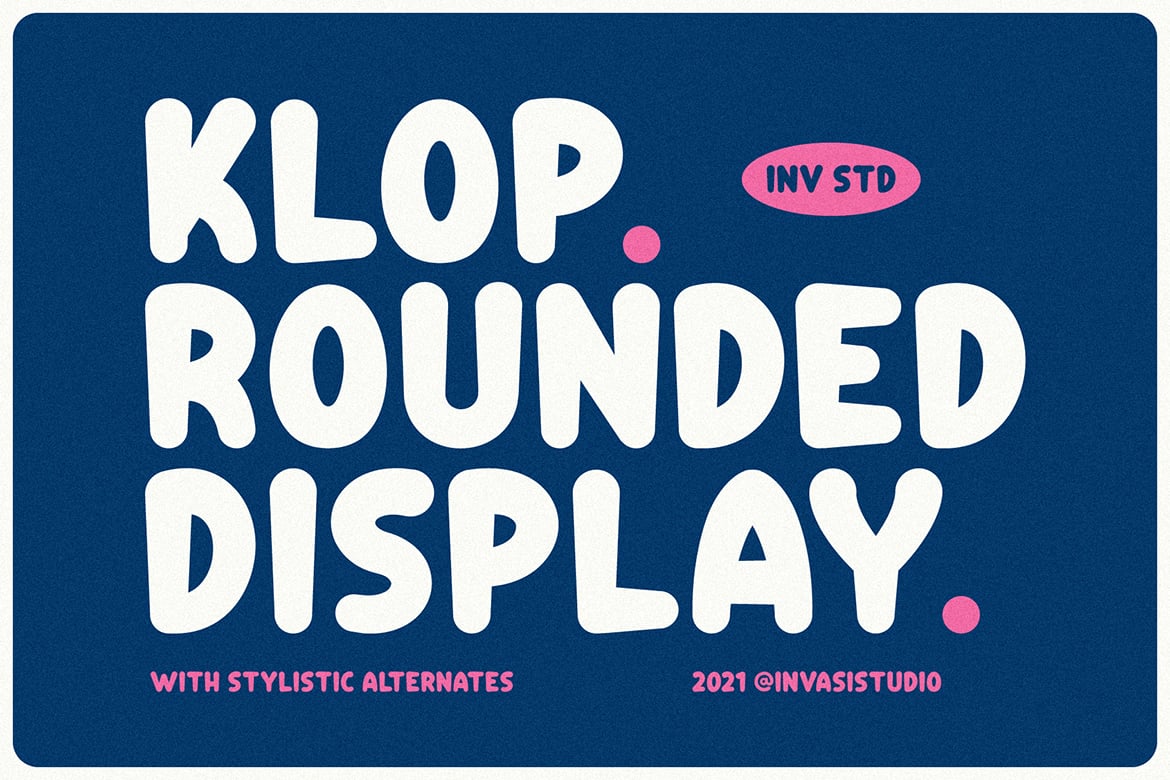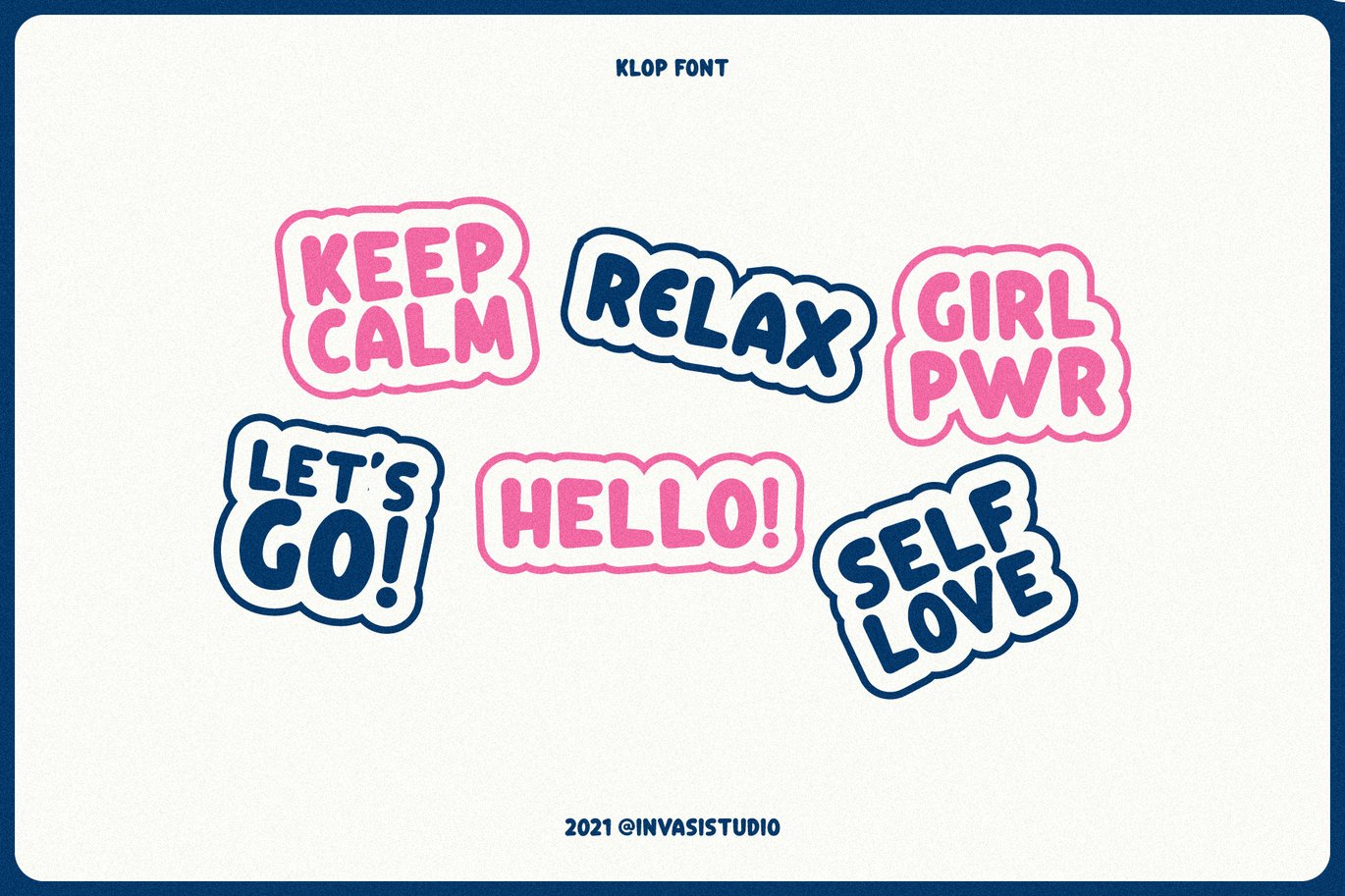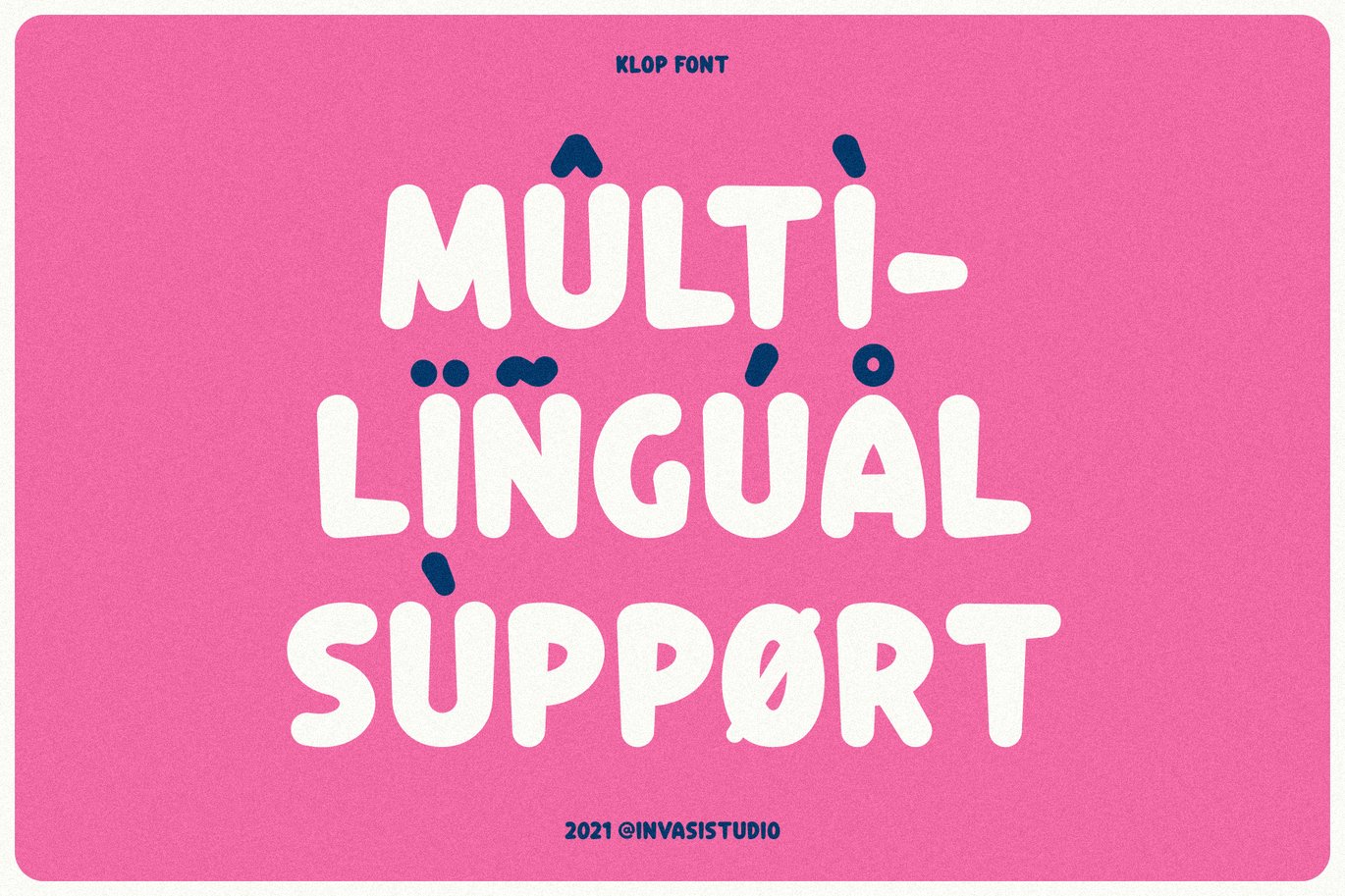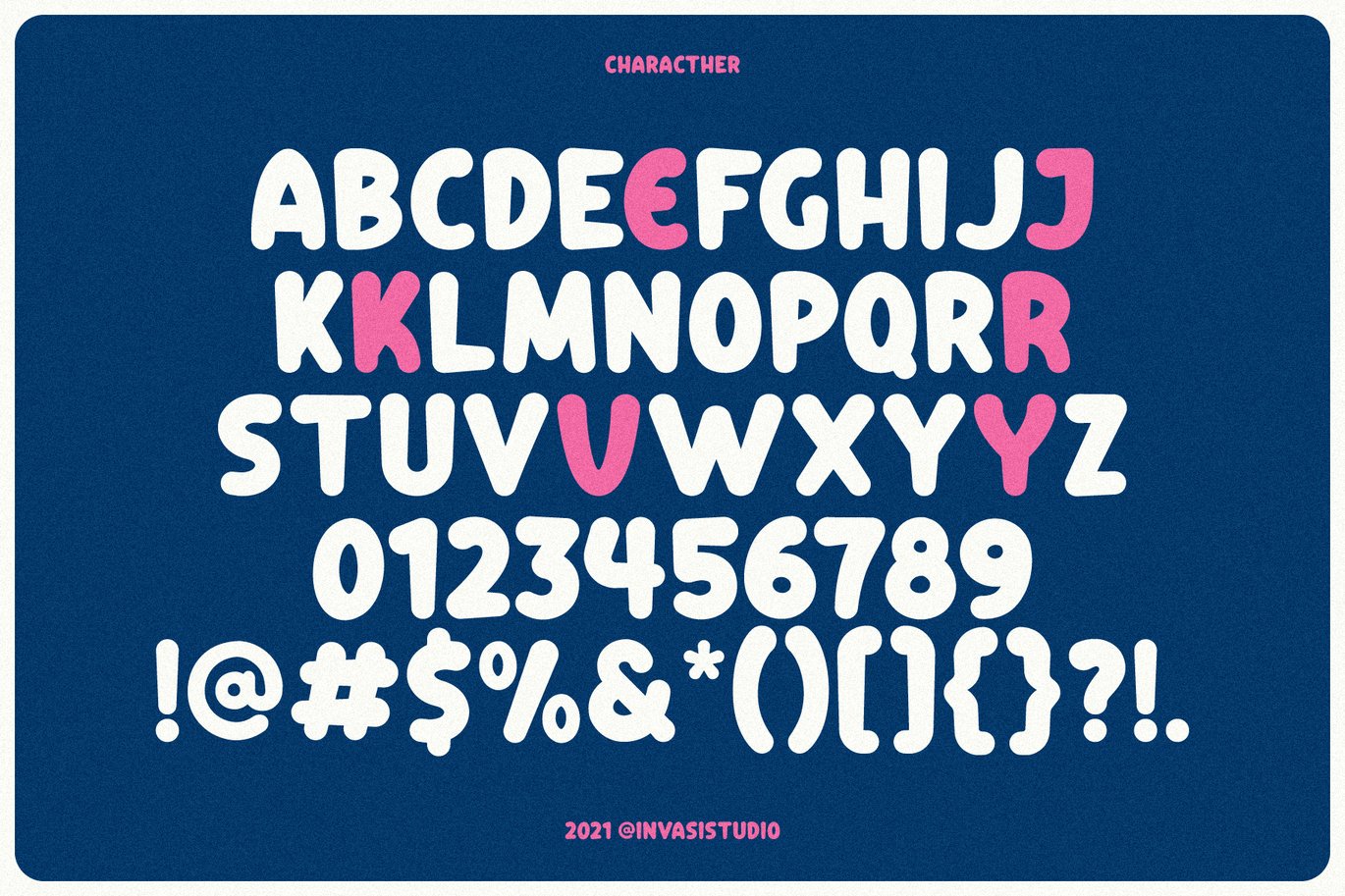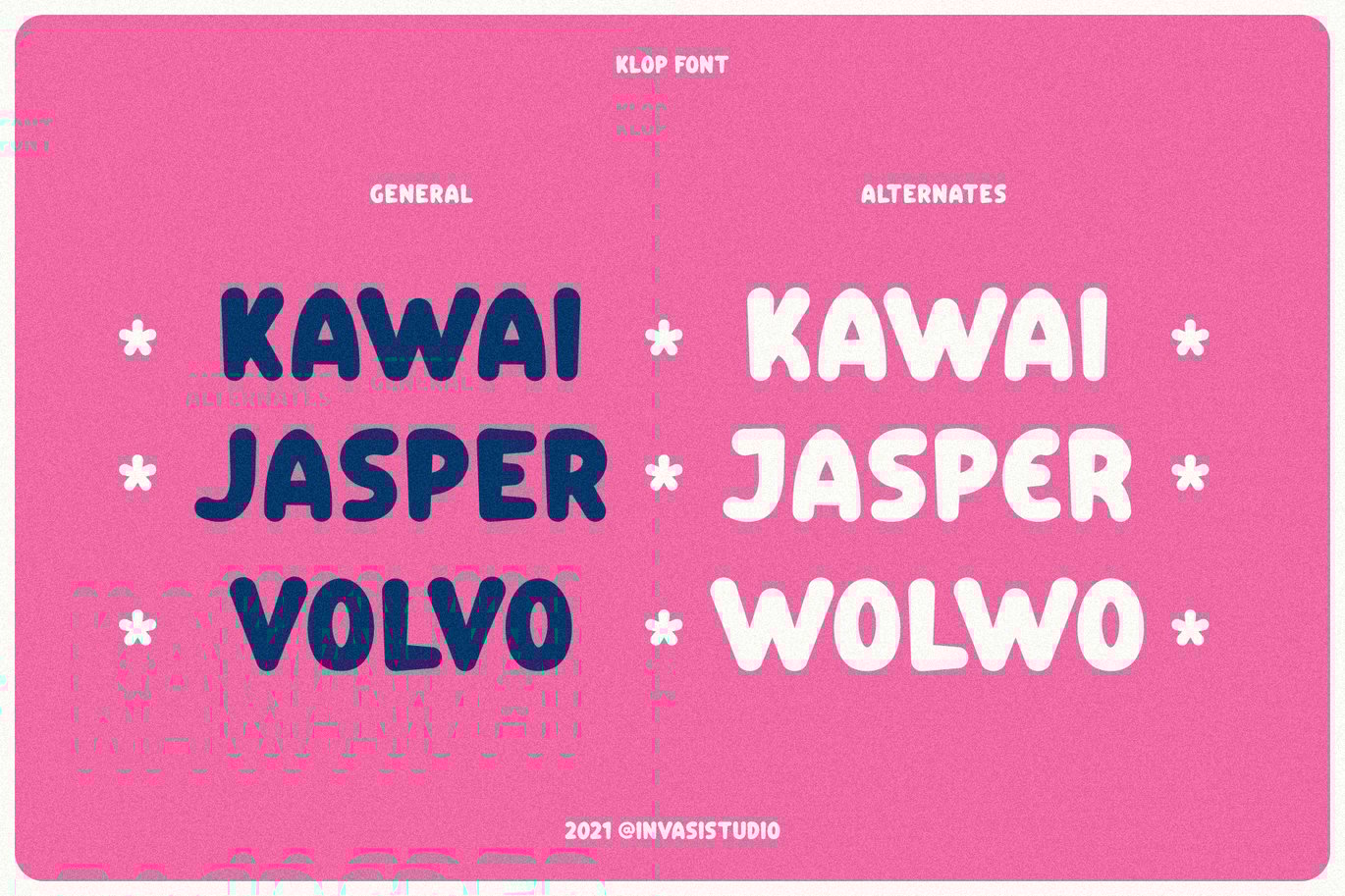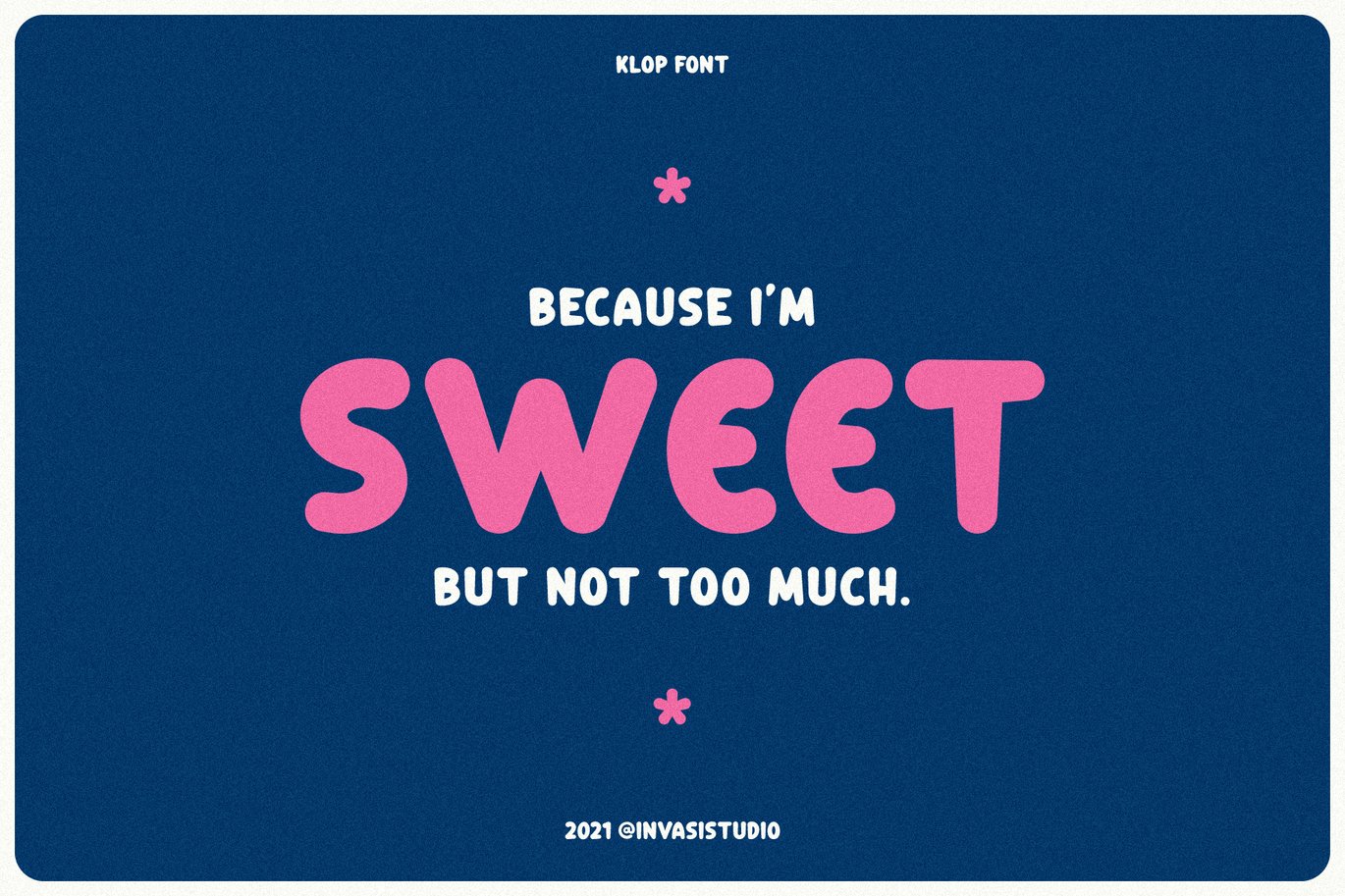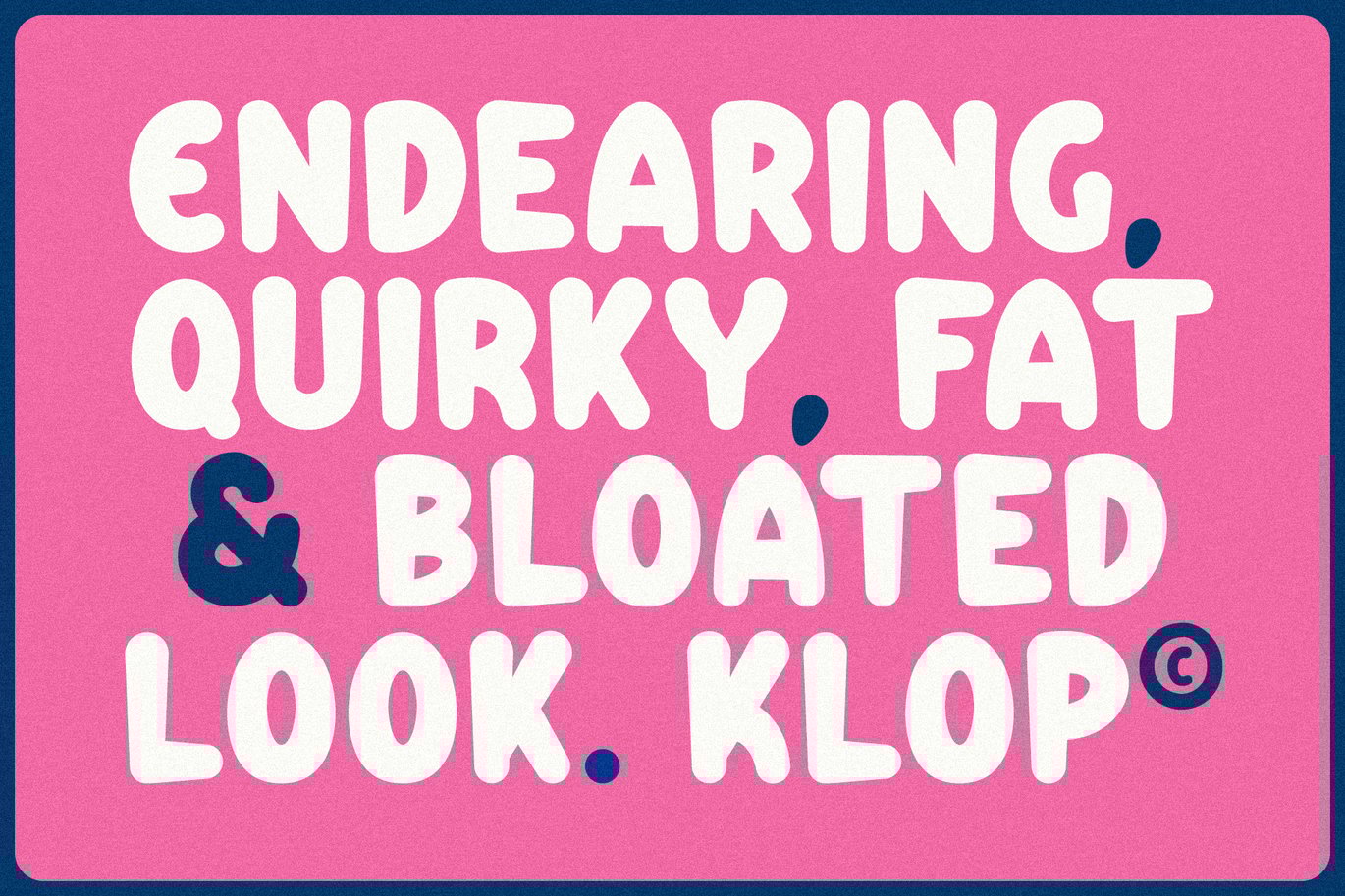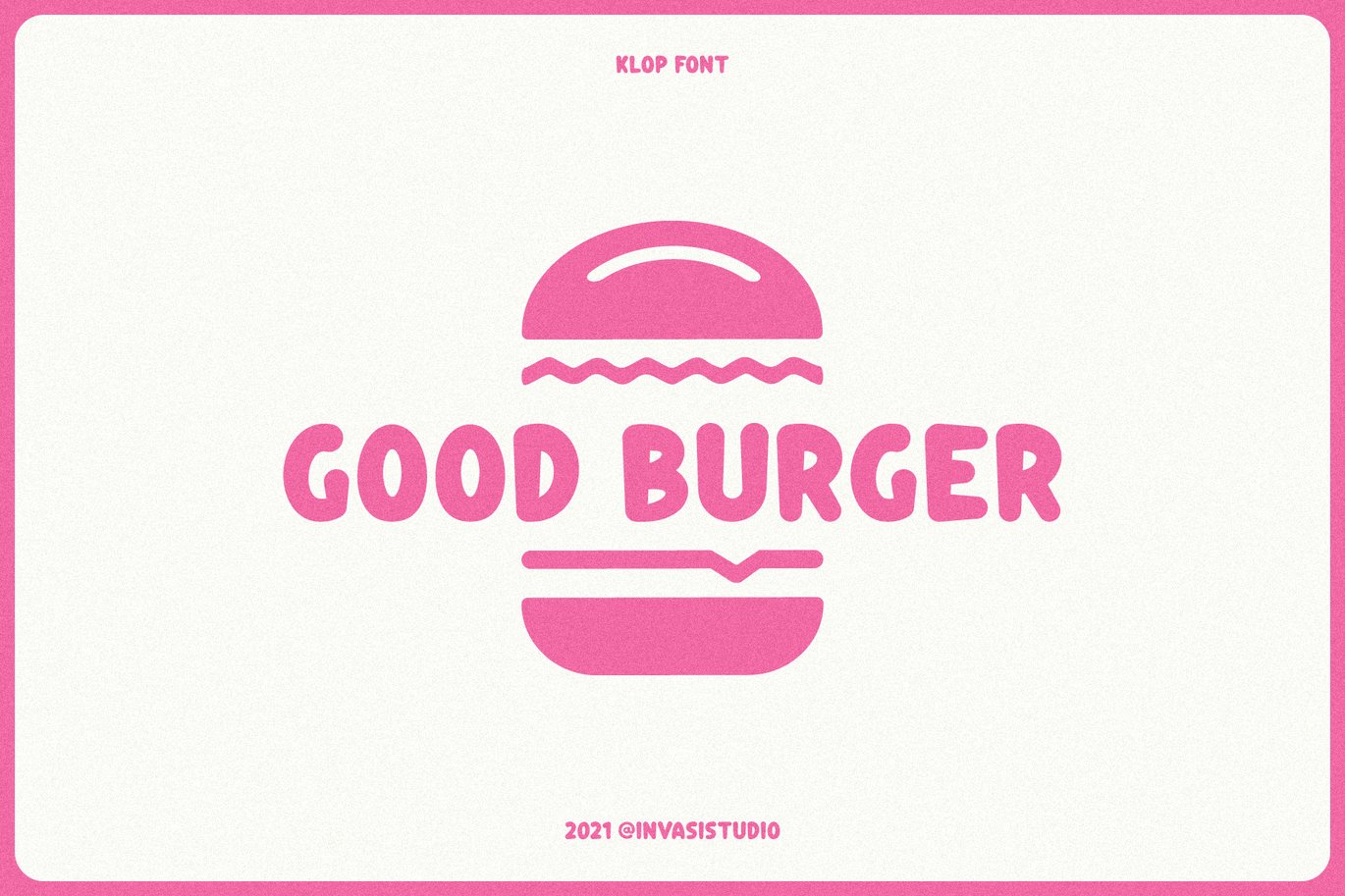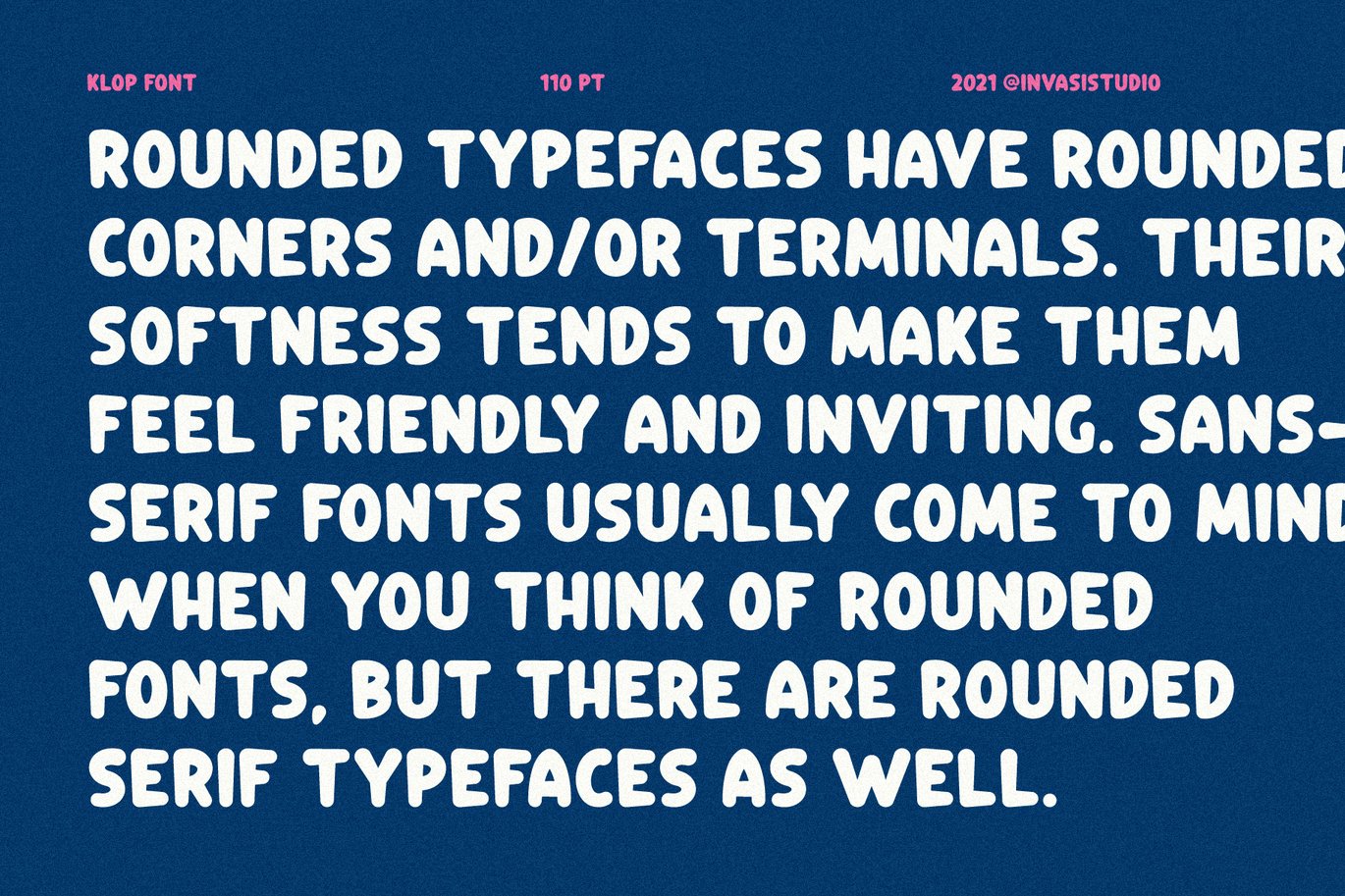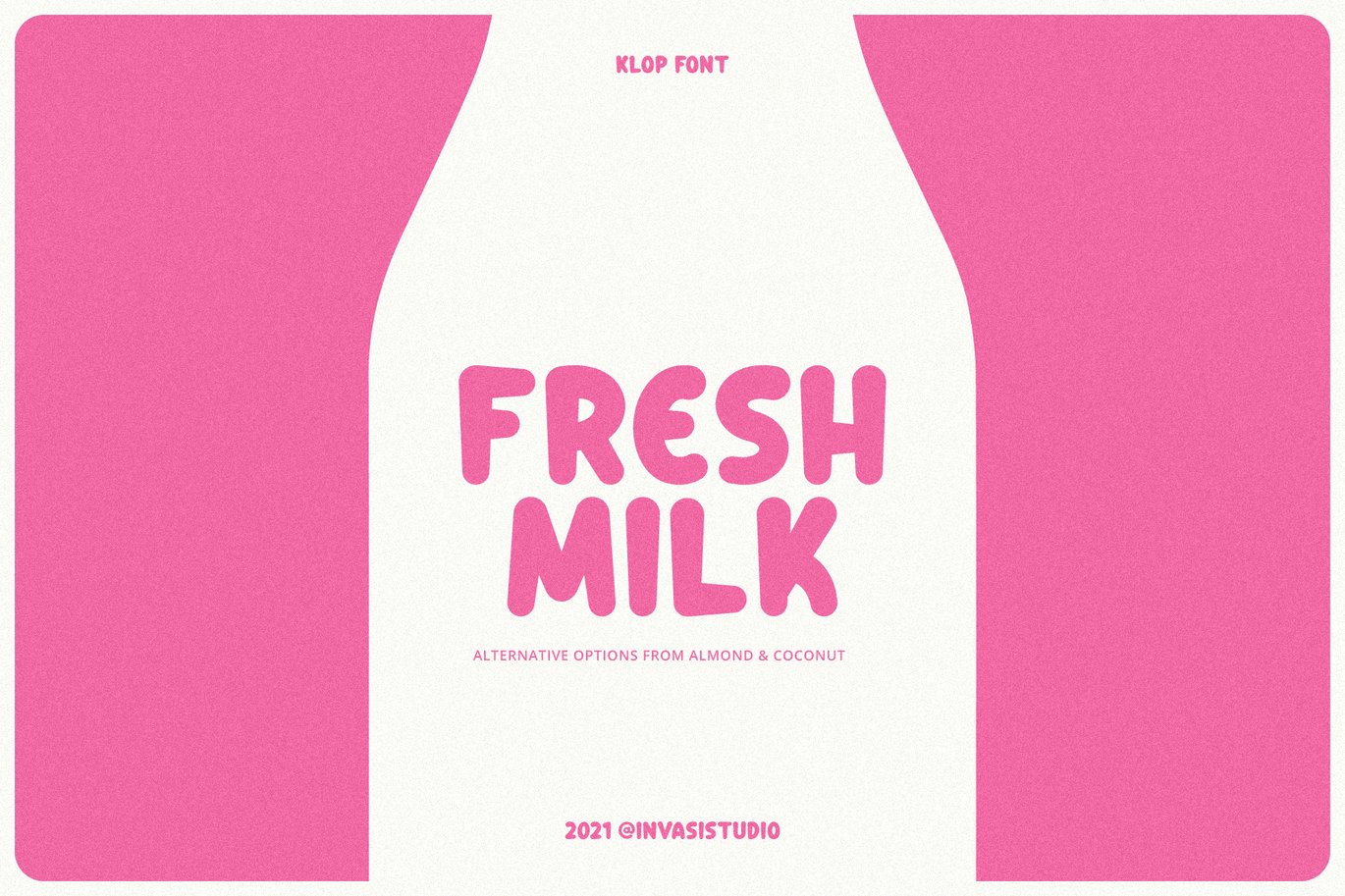
Klop – Friendly Rounded Font
Klop is a display typeface with a bloated and fat appearance. Combining this with round corners and a natural shape, Klop has a quirky and endearing appearance. You can use alternative glyphs to create a different appearance for your design.
The Klop font is ideal for branding projects or packaging that need a modern and playful feel.
- Multilanguage